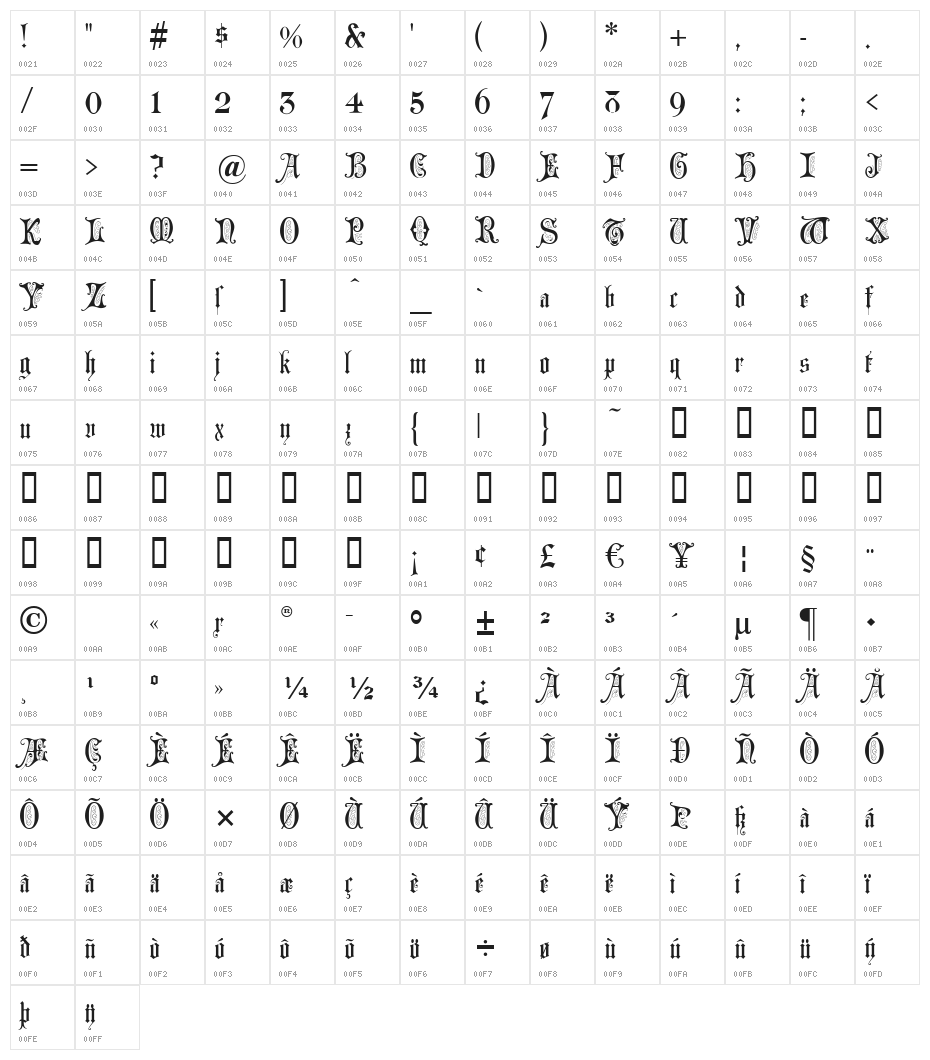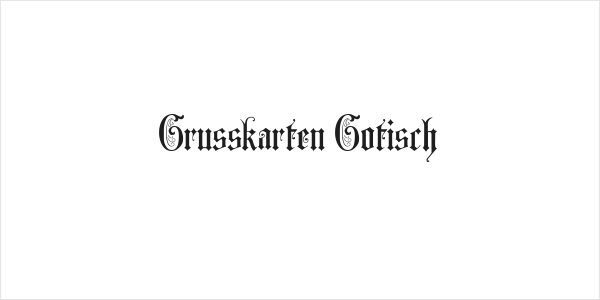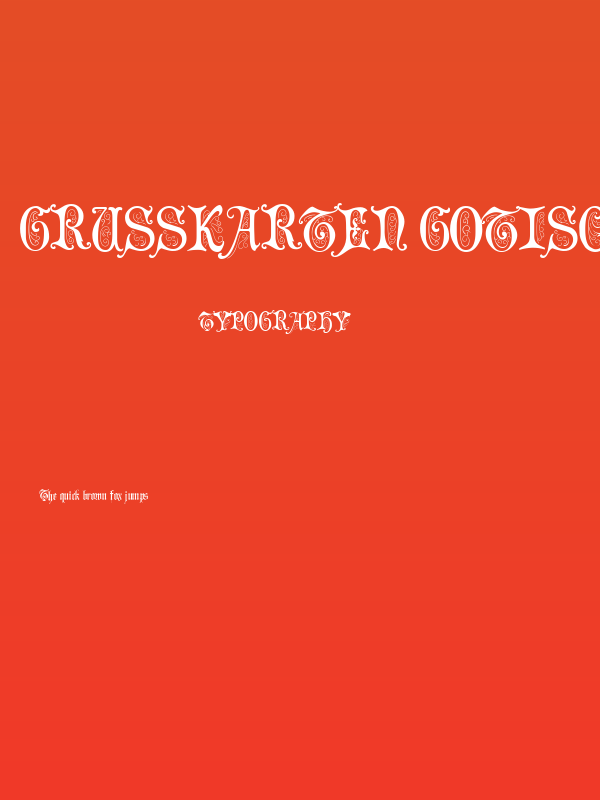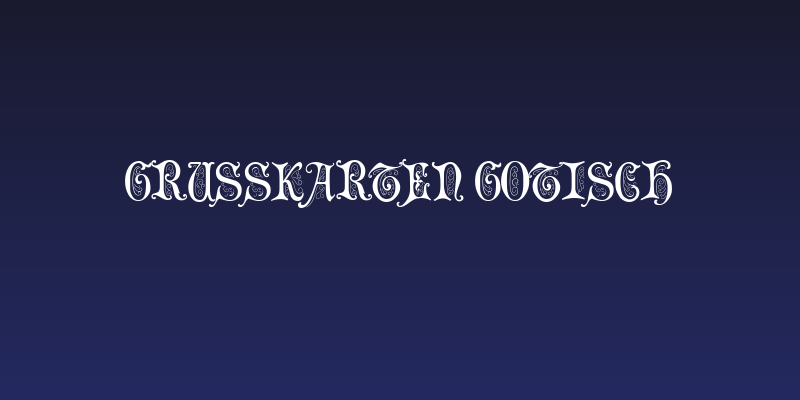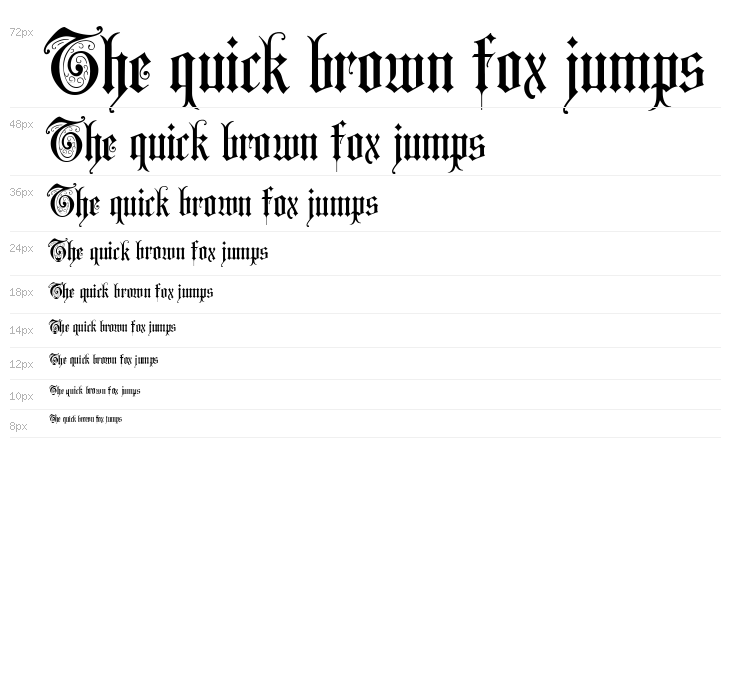
Grusskarten Gotisch Font
Grusskarten Gotisch Description
This font features a traditional Blackletter style, characterized by its ornate and intricate letterforms. The uppercase letters are embellished with decorative swirls and flourishes, giving them a regal and historic appearance. The lowercase letters maintain the classic Blackletter sharpness and angularity, with elongated vertical strokes and pointed serifs. The numerals are bold and consistent with the overall style, providing a cohesive look. Special characters are designed with the same attention to detail, integrating seamlessly with the rest of the font. This font evokes a sense of tradition and formality, making it suitable for projects that require a touch of elegance and historical reference.
| Use Case | Headlines, Logos, Decorative text |
| Proposed Projects | Ideal for wedding invitations, certificates, historical documents, and branding that requires a traditional touch. |